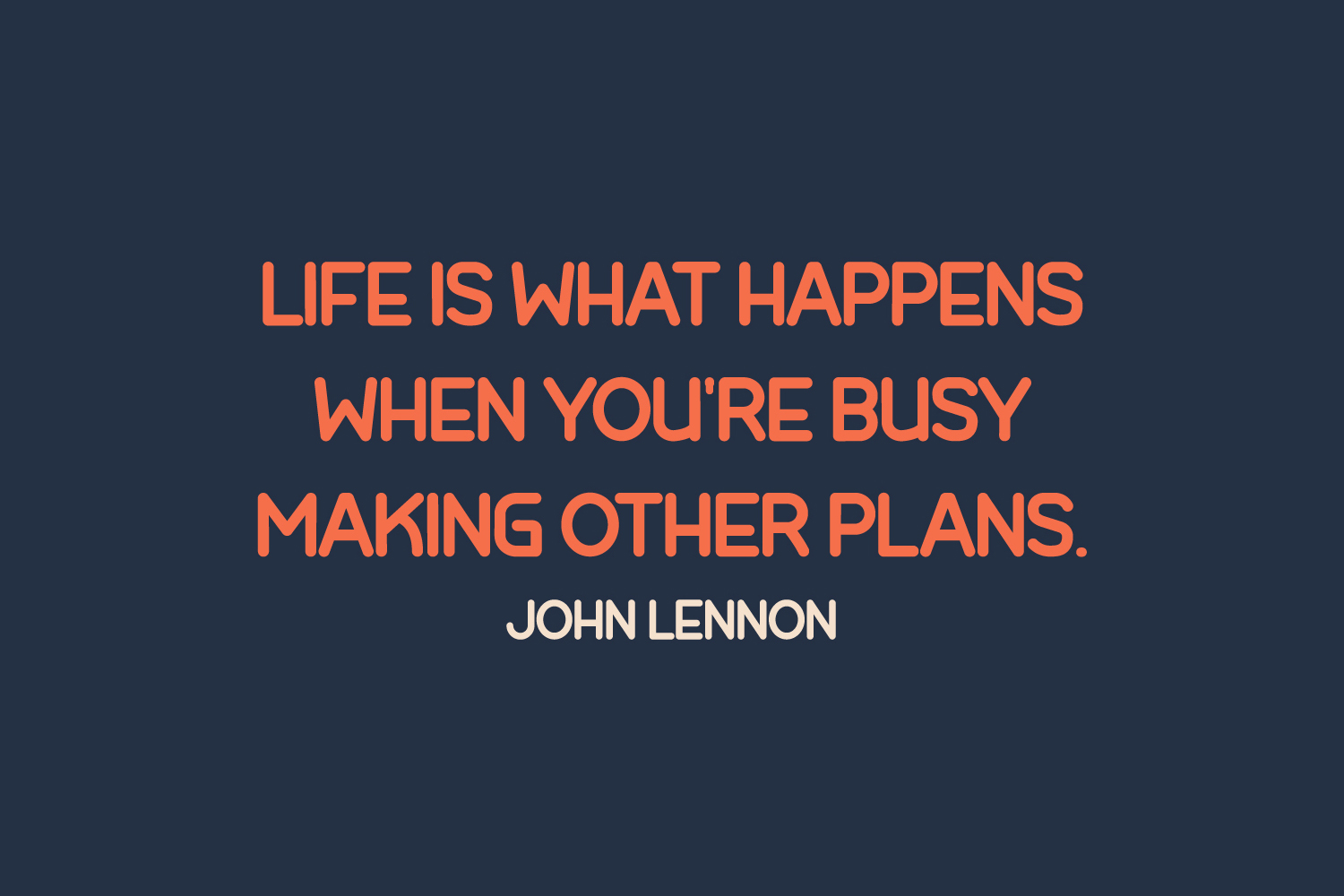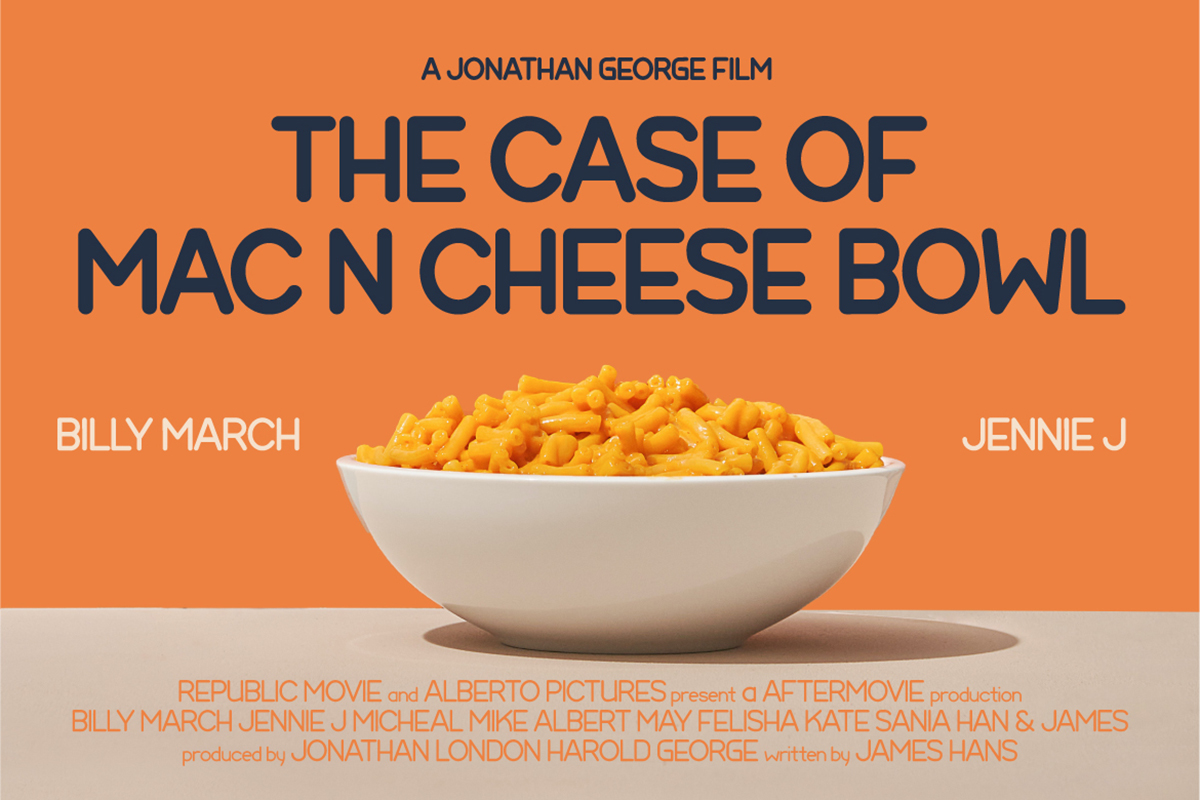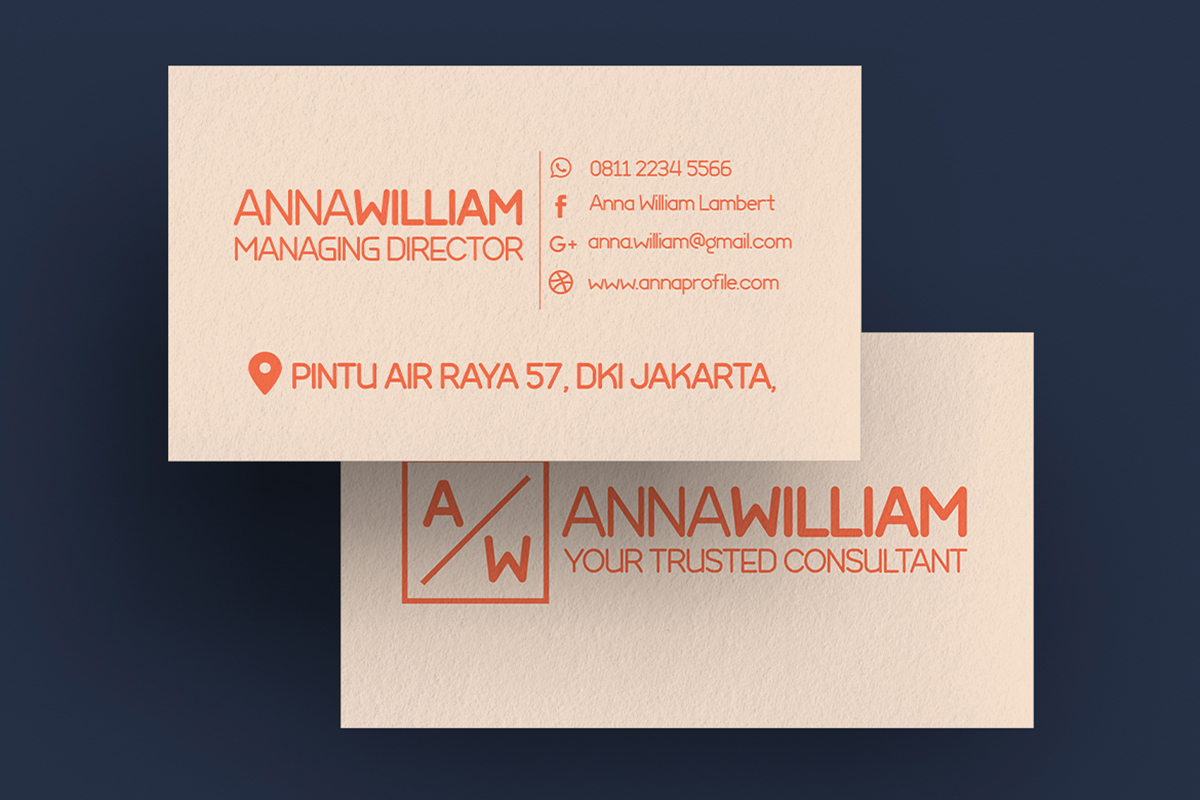
Kimora Free Font
Discover Kimora Free Font, a laid-back yet vintage and sleek sans-serif font. Regardless of the subject matter, this font serves as an invaluable addition to your font collection, capable of enhancing any creative endeavor it graces. Unleash the potential of Kimora to elevate your designs to new heights. This free typeface was designed by a talented Twin Letter. If you like it don’t forget to check out the full version.